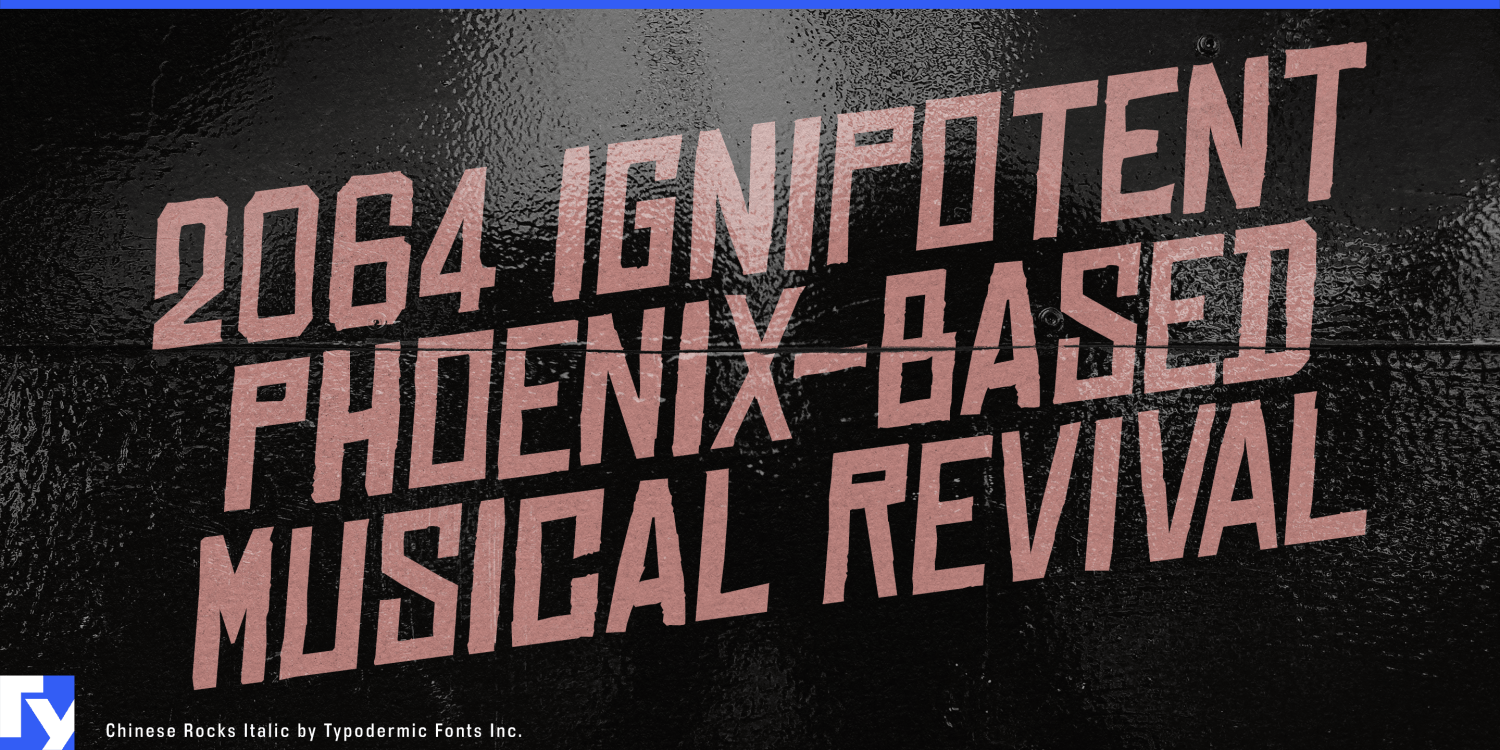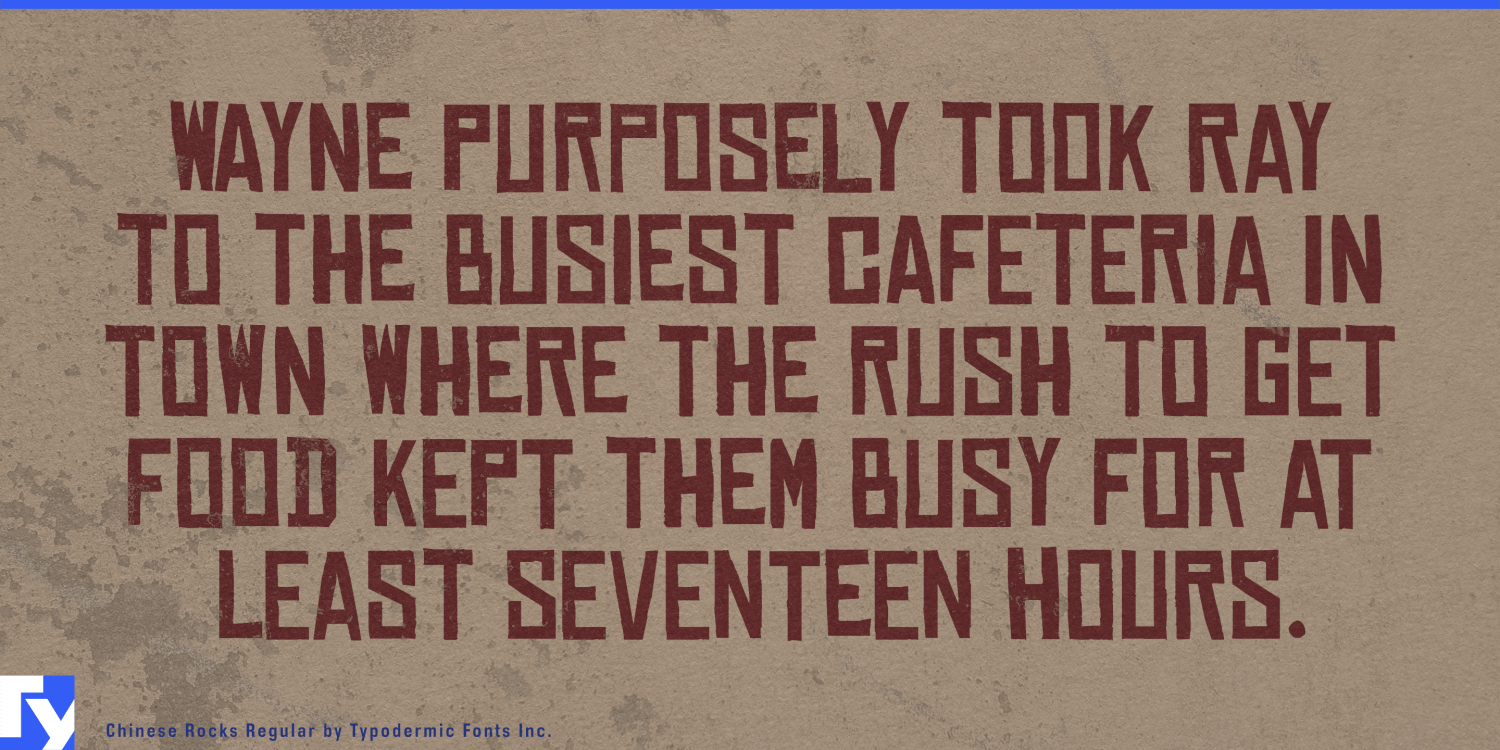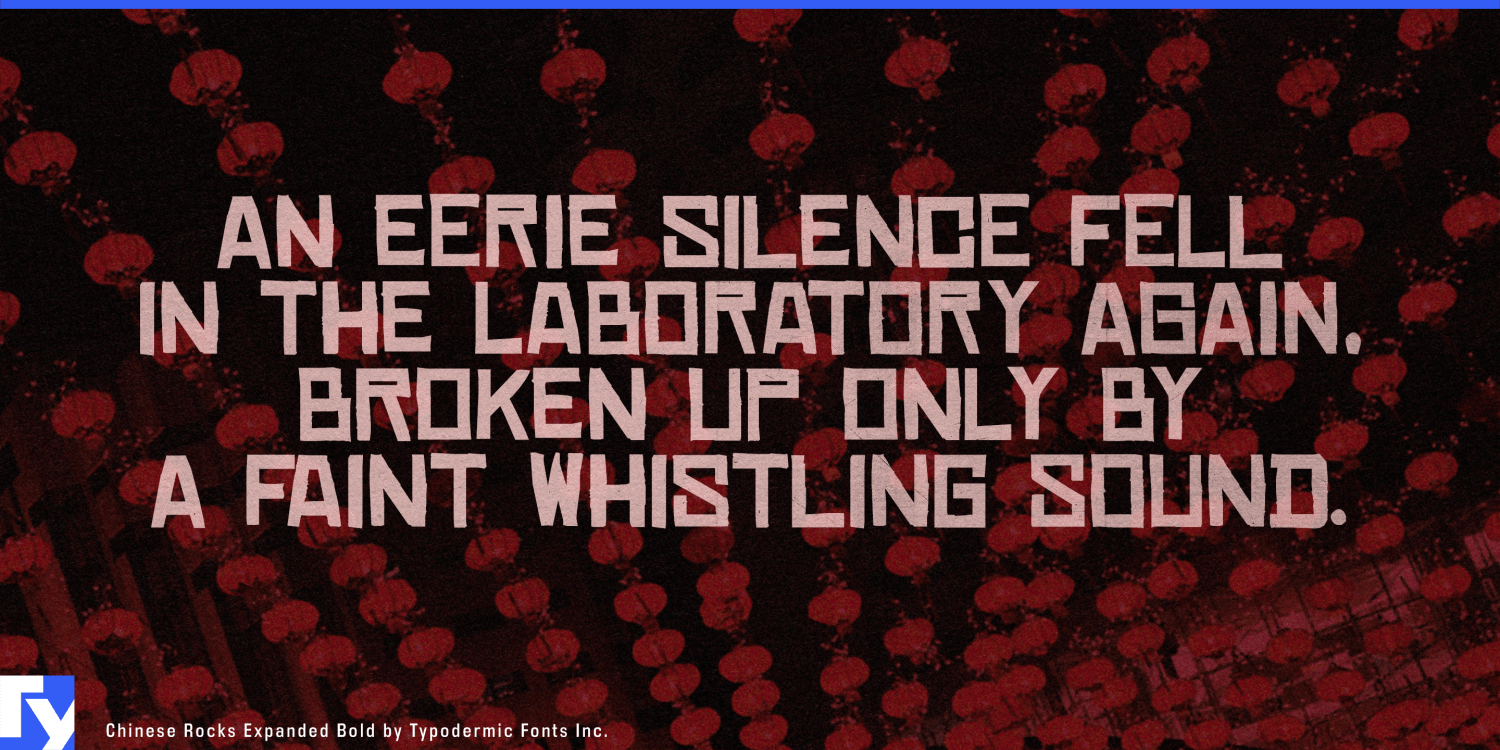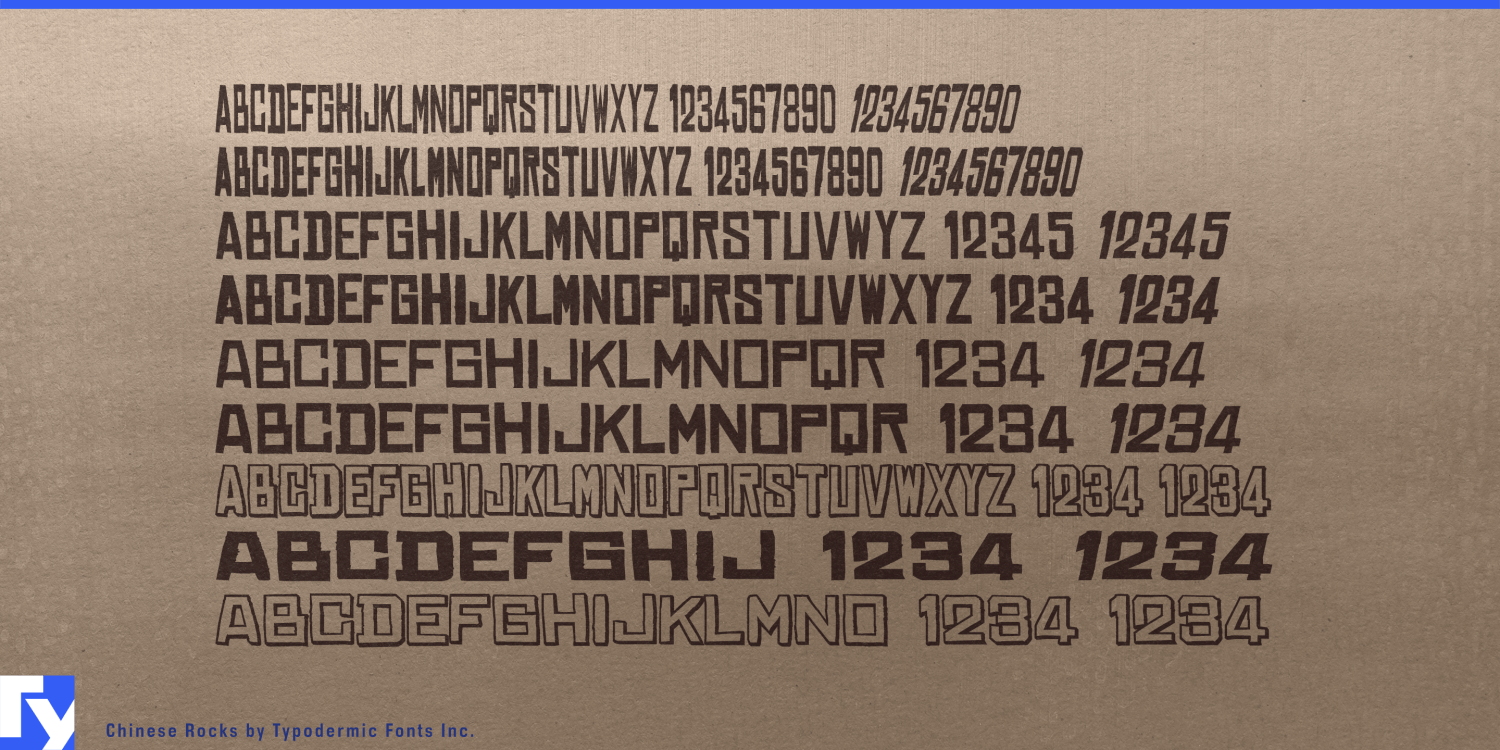
About Chinese Rocks
Unleash the raw power of authentic expression with Chinese Rocks, a typeface that doesn’t just communicate—it resonates with the gritty pulse of urban life. Inspired by the hand-cut rubber-stamp lettering adorning 20th-century Chinese export…